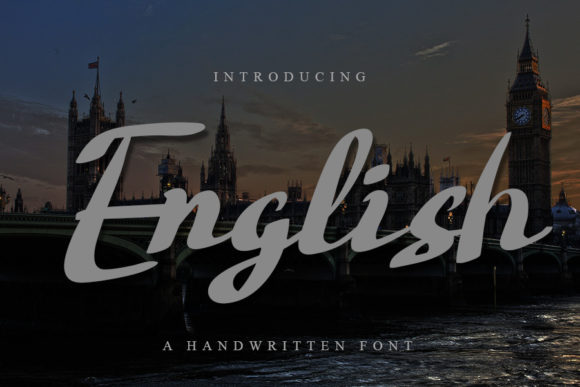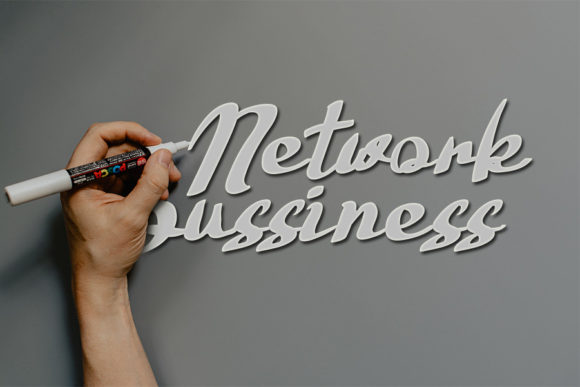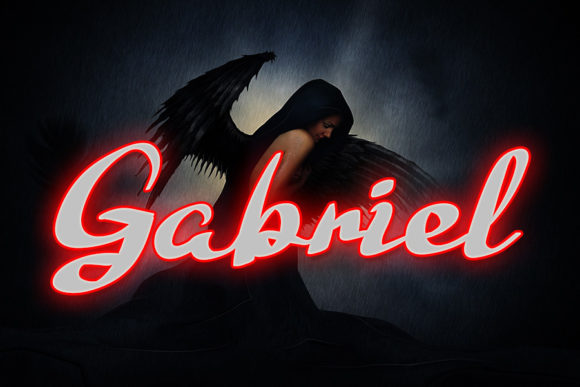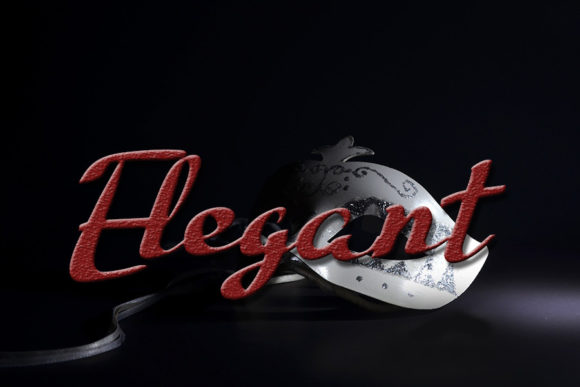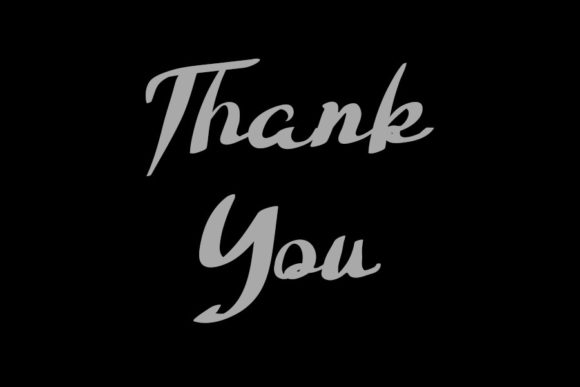
English Font
English is a chic, refined script font that emanates sophistication and elegance. Its stylish alternates and ligatures make this font the perfect match for any project.